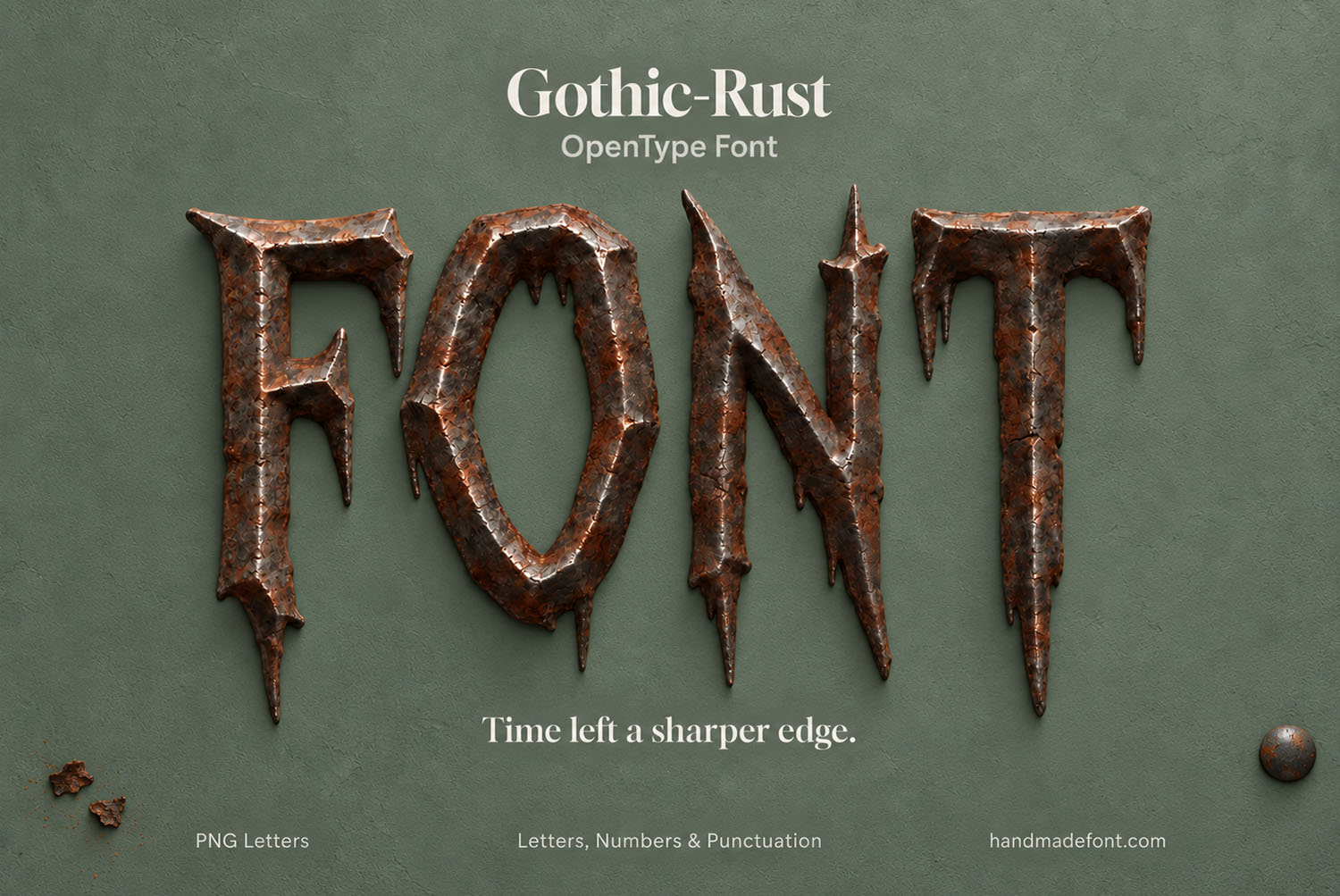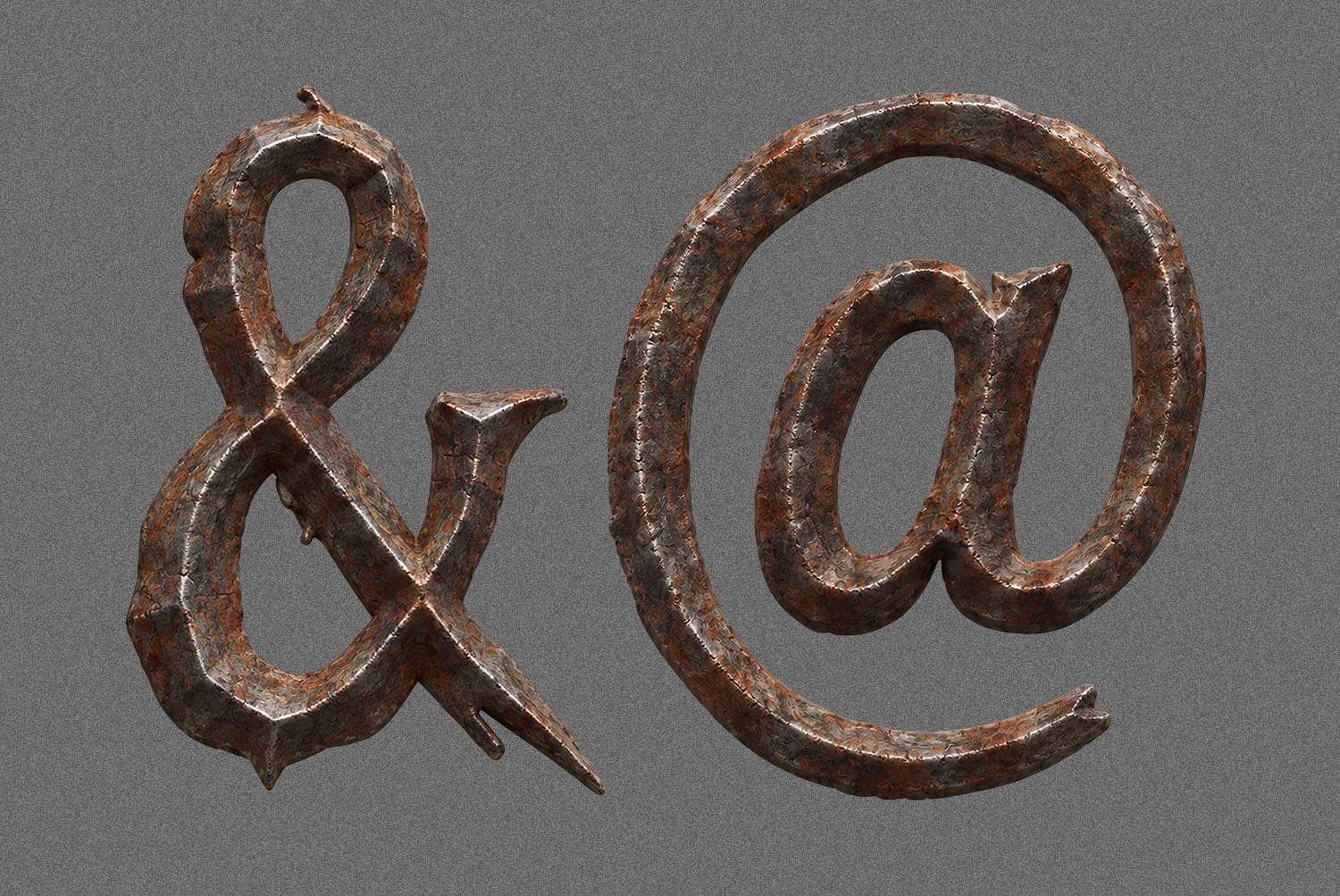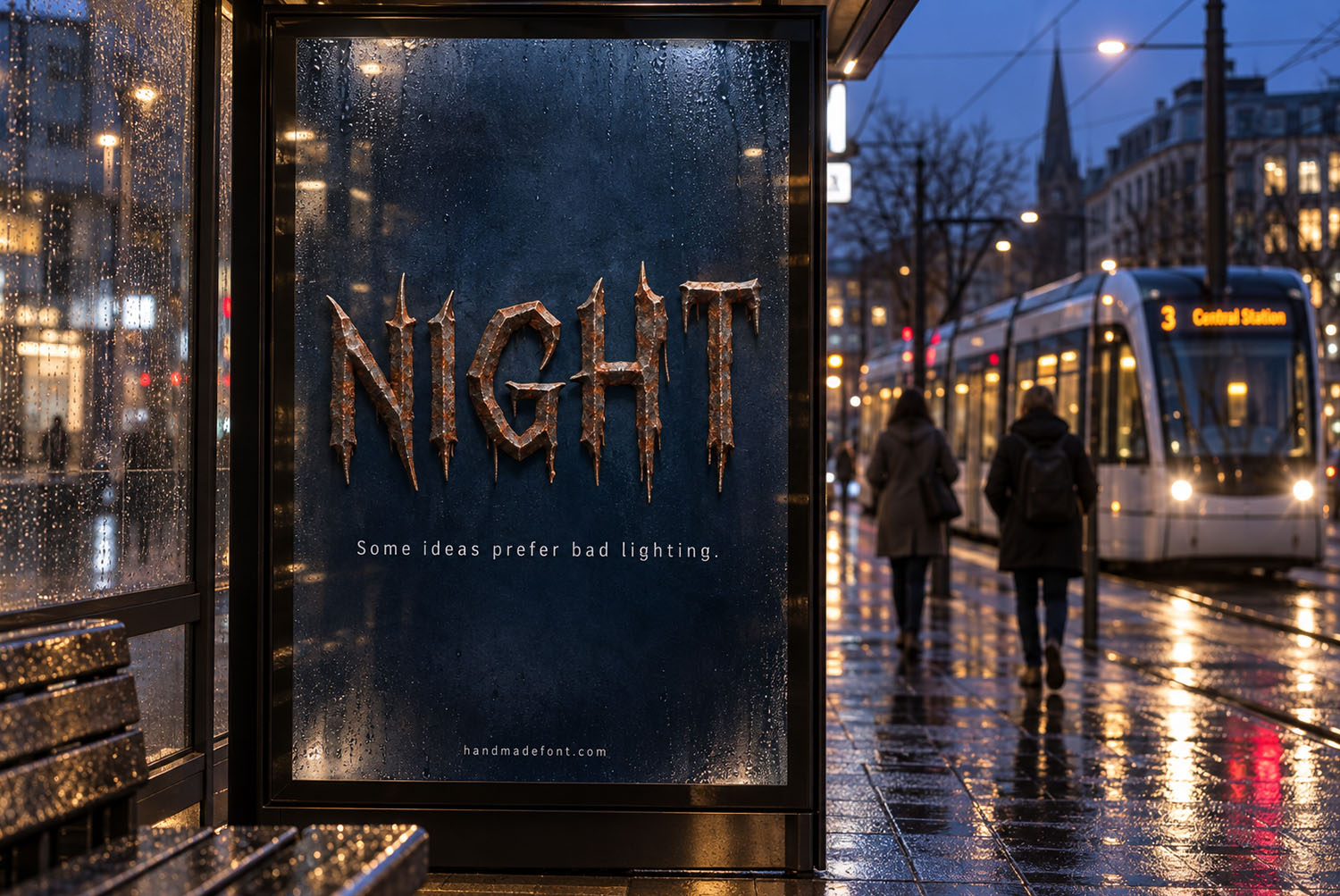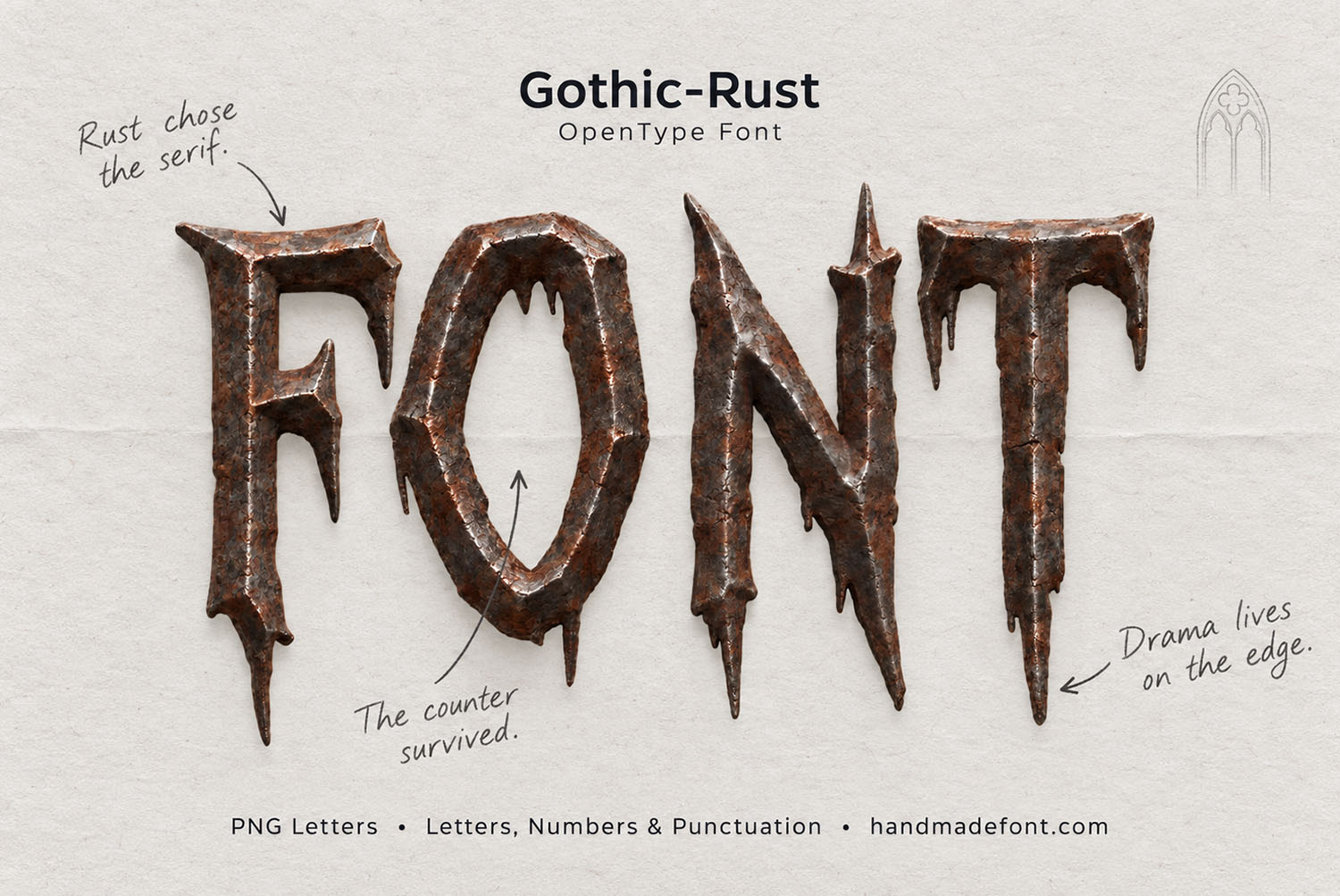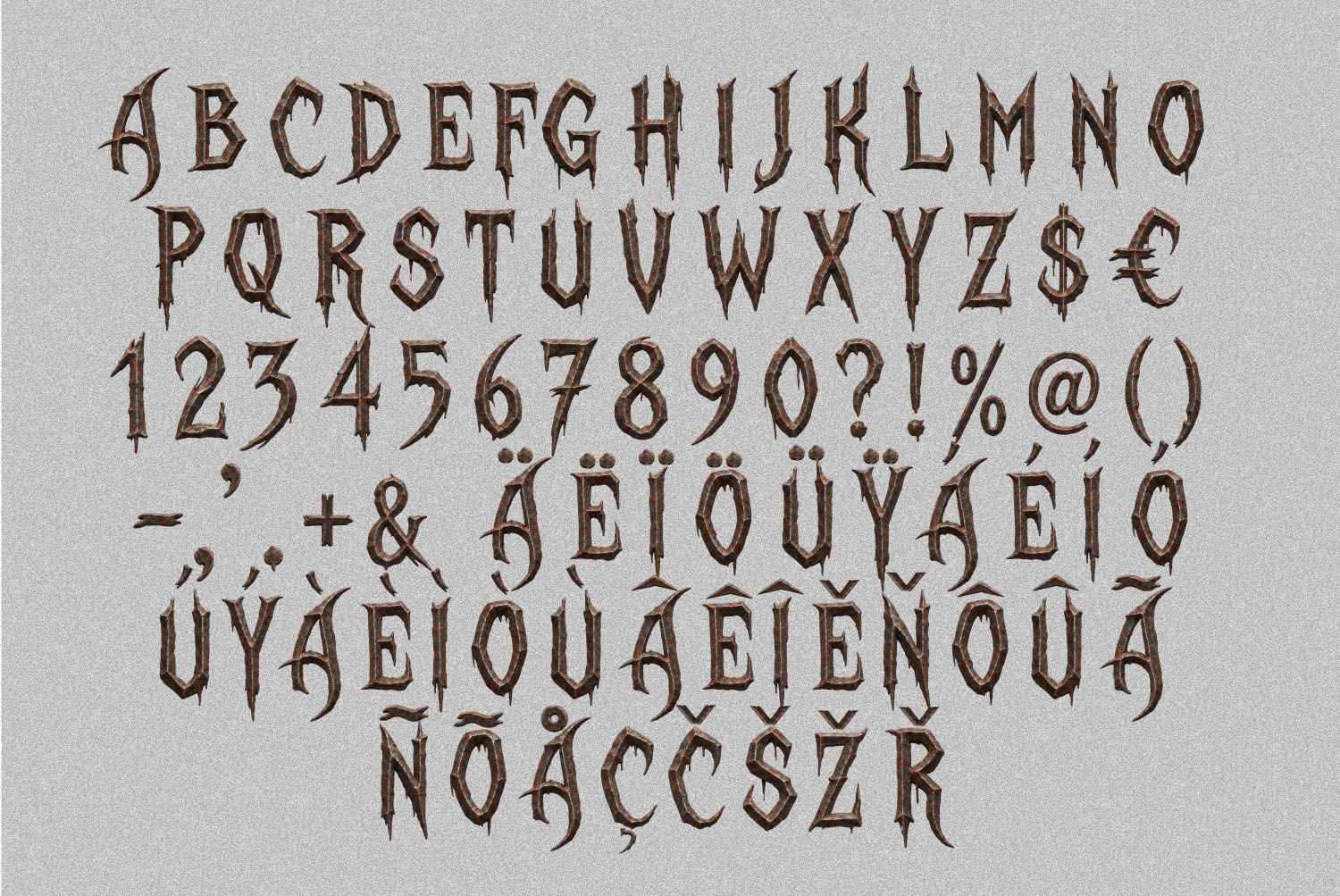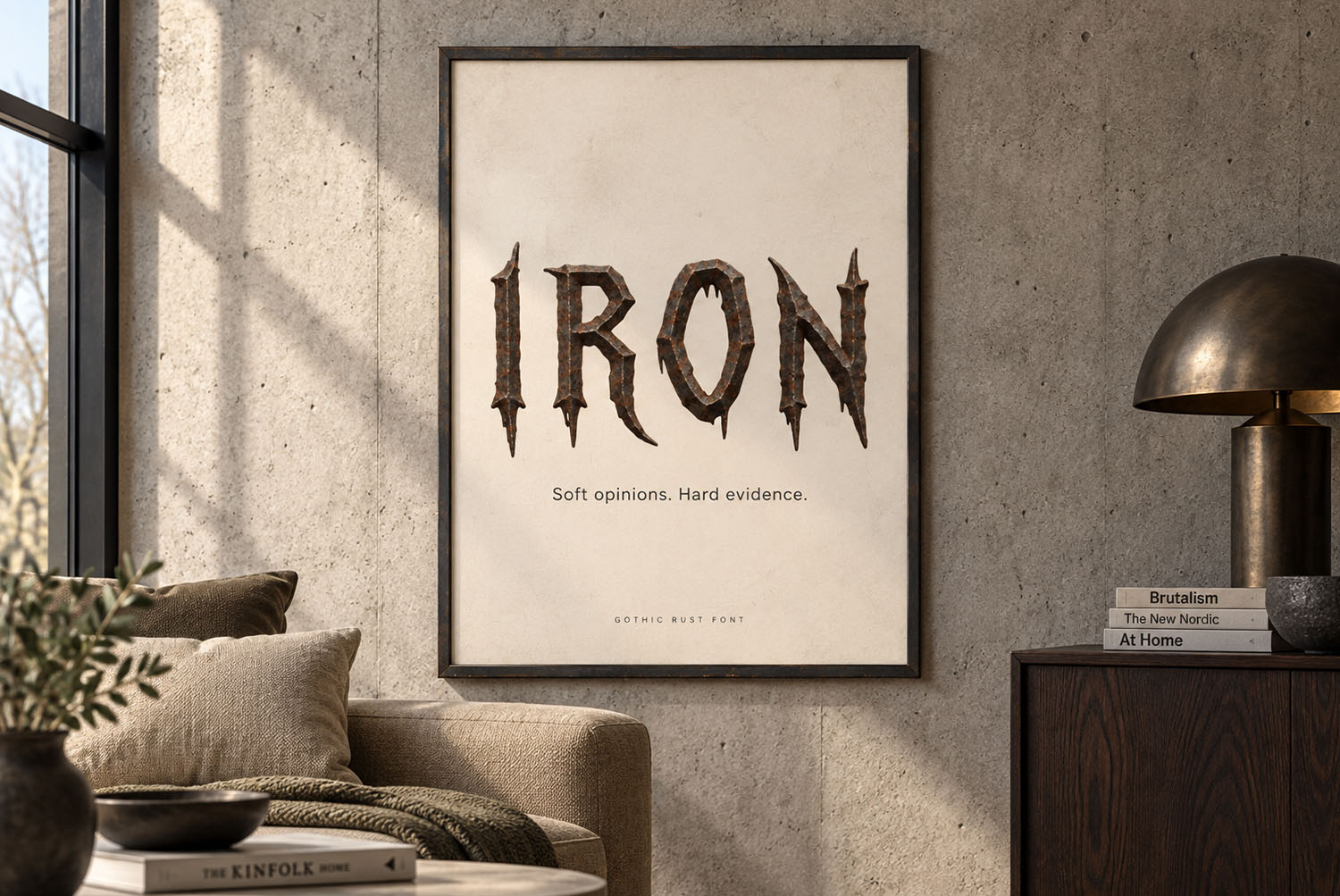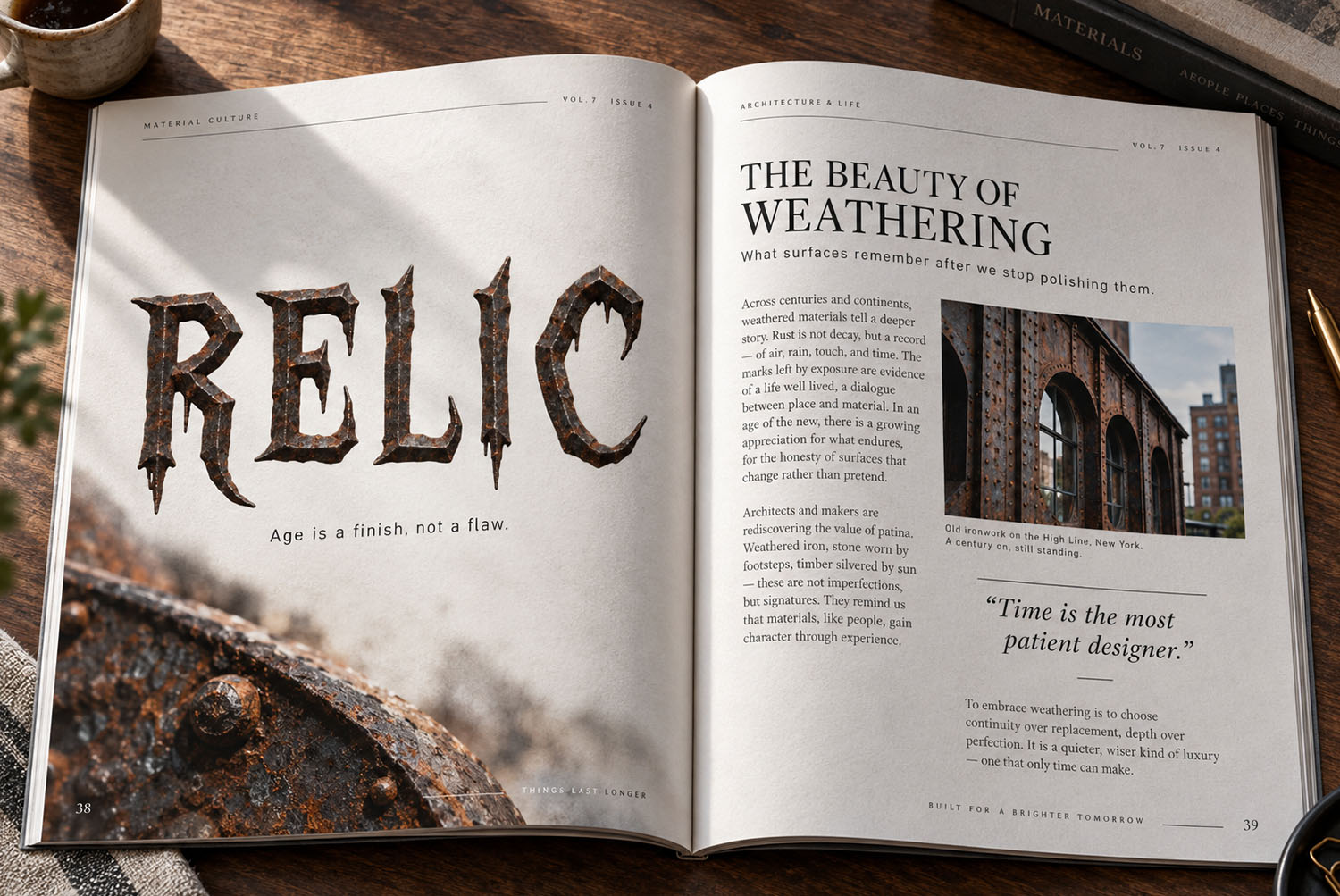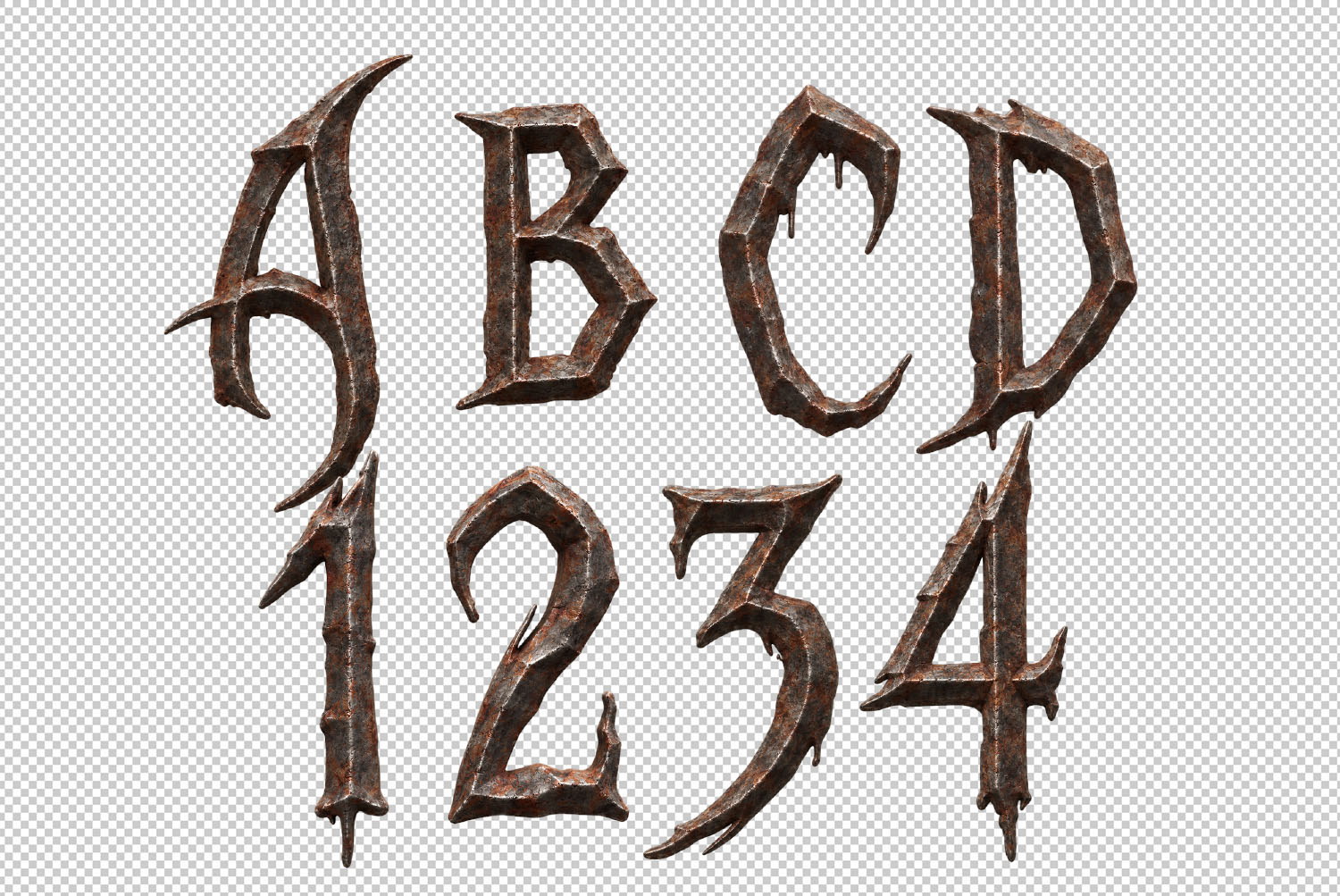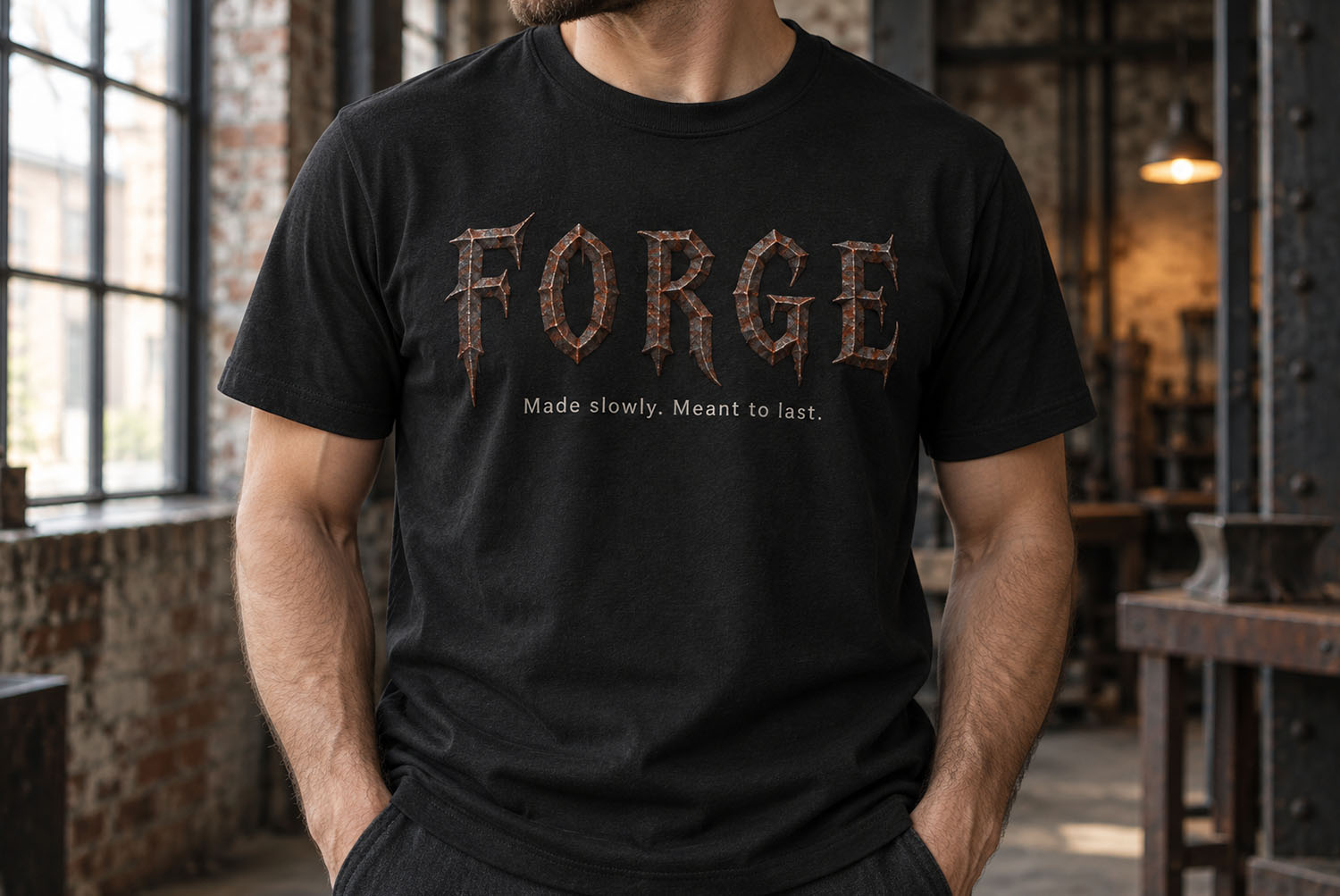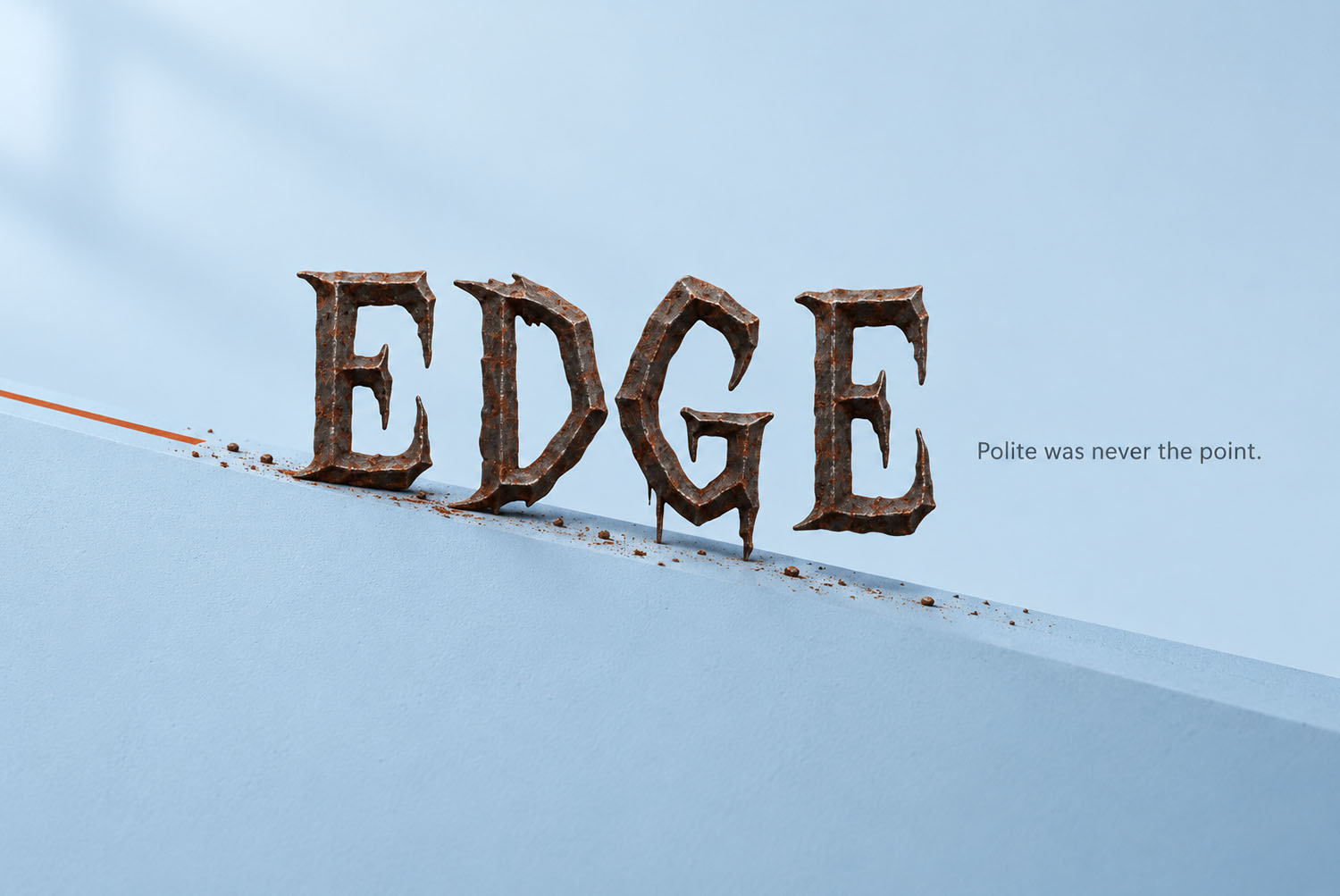
Gothic Rust Font. Spiked Iron Capitals Gone to Rust
Gothic Rust Font is an alphabet of narrow iron capitals that corrosion got to first. The serifs pull out into long spikes, rust crawls over the flats, and small holes sit where the metal gave way. It shouts on dark posters, band merch and horror covers. Uppercase only, plus numbers, punctuation and accents. One word usually says plenty.
Gothic Rust Font Came Out of a Scrapyard, Not a Sketchbook
Every capital here wears a coat of corrosion, so the metal underneath only shows in patches. Orange-brown scale creeps across the flats, while darker iron holds the edges. The serifs have grown into long spikes, though several taper to a plain needle. Rust has chewed small holes through the thinner strokes, because nothing here ever saw paint. Naturally the whole alphabet reads as one object that sat outside for years. Gothic Rust Font carries that history in every glyph.
Sharp Gothic Bones Sit Under All That Decay
Strip the texture away, then a narrow gothic capital stays behind. Strokes run heavy and vertical, though the counters in O, D and R stay wide open. That openness matters, since a spiky face turns into mush at small sizes without it. Numbers, currency, punctuation and a long row of accents also follow the same rule. Meanwhile the ampersand and the at-sign got the full treatment, with spurs long enough to snag a sleeve. Uppercase only, of course, because lowercase would soften the whole idea.
Animated banner spelling FONT in the corroded capitals of the Gothic Rust Font
Where Gothic Rust Font Earns Its Keep
Dark backgrounds are where this alphabet wakes up. Put it on a night poster, a black shirt or a weathered flag, then the rust reads instantly. Metal bands and tattoo studios will reach for it first, obviously. It also suits horror covers, whisky labels and anything trading on age, since the letters already look like they survived something. One word is usually enough, though. Gothic Rust Font shouts, so a whole paragraph would shout back at your reader.
Close-up of the word FONT in the Gothic Rust Font on a muted green background
Uppercase alphabet, figures, punctuation and accents of the Gothic Rust Font on light grey
The word EDGE in the Gothic Rust Font balanced on a thin wire against pale blue
City billboard on a wet street at night showing the word NIGHT in the Gothic Rust Font
Magazine spread with the headline RELIC set in the Gothic Rust Font
Ampersand and at sign of the Gothic Rust Font in pitted rusty metal on grey
Framed print reading IRON in the Gothic Rust Font hanging above a sideboard
Black t-shirt printed with the word FORGE in the Gothic Rust Font
Glass museum vitrine holding the word OLD built from Gothic Rust Font letters
Dark flag reading RISE in the Gothic Rust Font flying above an industrial skyline
The word RUST in the Gothic Rust Font ringed by scattered rust flakes on paper
The word SHARP in the Gothic Rust Font casting a long shadow across cream paper
The word YES in the Gothic Rust Font standing on a rusted podium against a teal background
Letters A to D and figures one to four of the Gothic Rust Font on a transparent background
Specimen poster of the Gothic Rust Font with the word FONT and handwritten notes on its spiked serifs